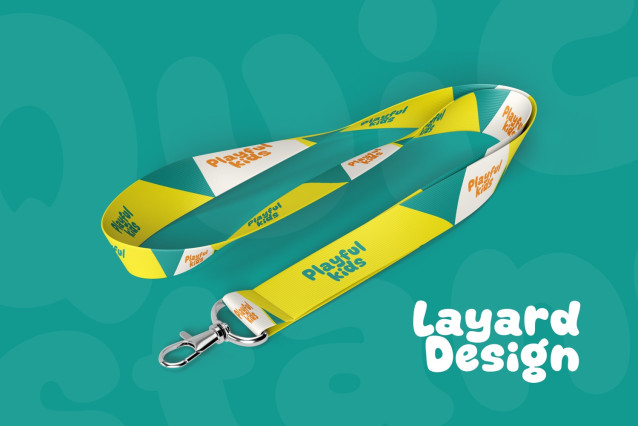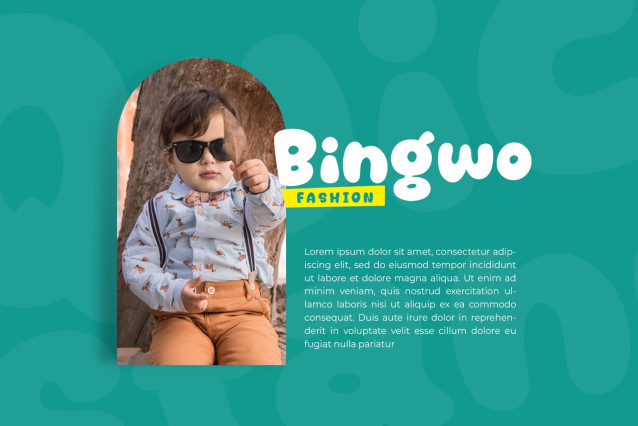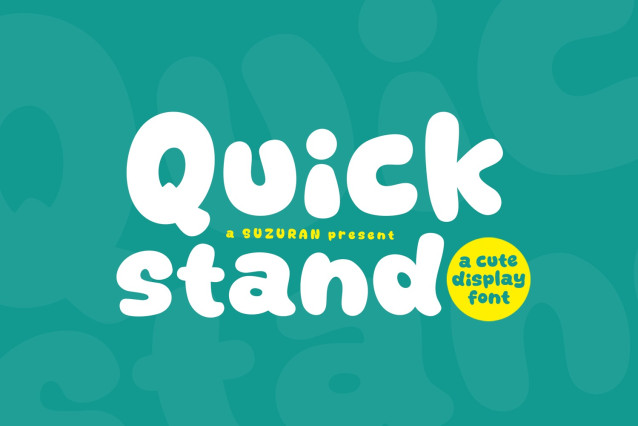
Quick Stand Font
Quick Stand Font, a font that is very fresh, cute and unique style display font for your design project. Quick Stand is perfectly suited to logo, stationery, poster, apparel, branding, wedding invitation, card, tagline, layout design, and much more !!.